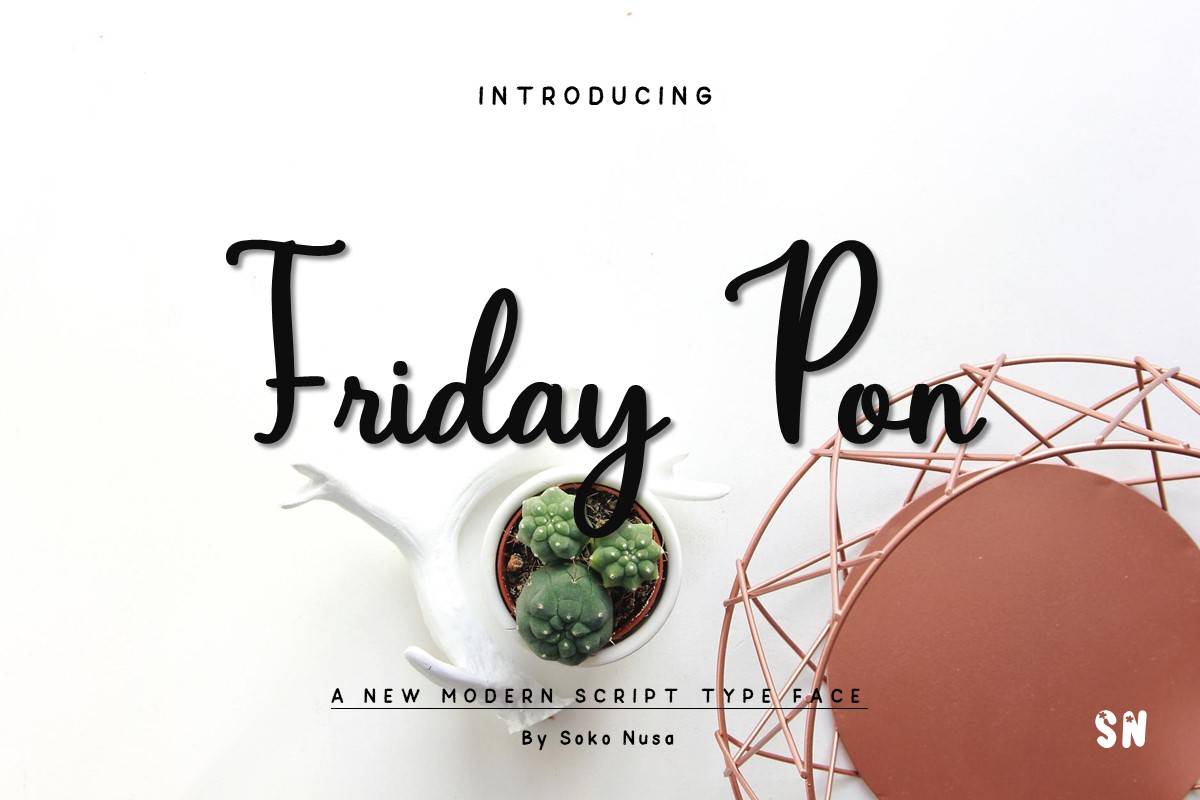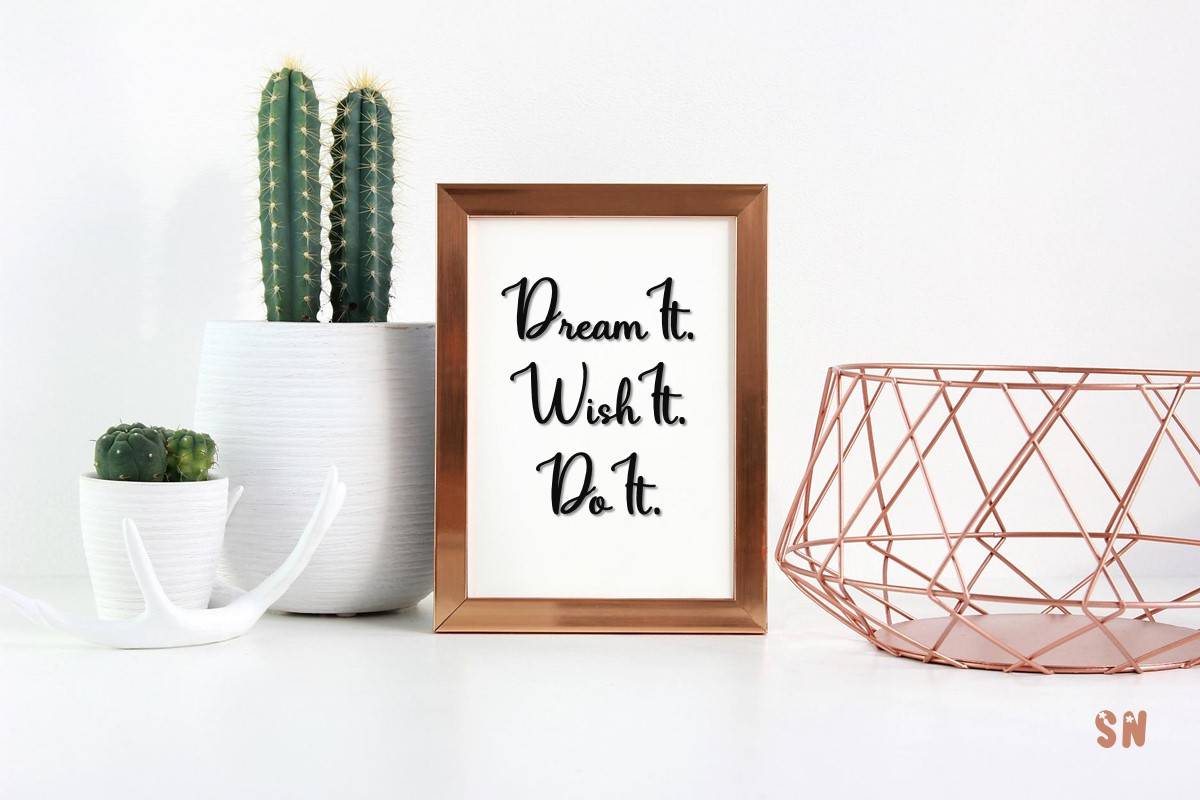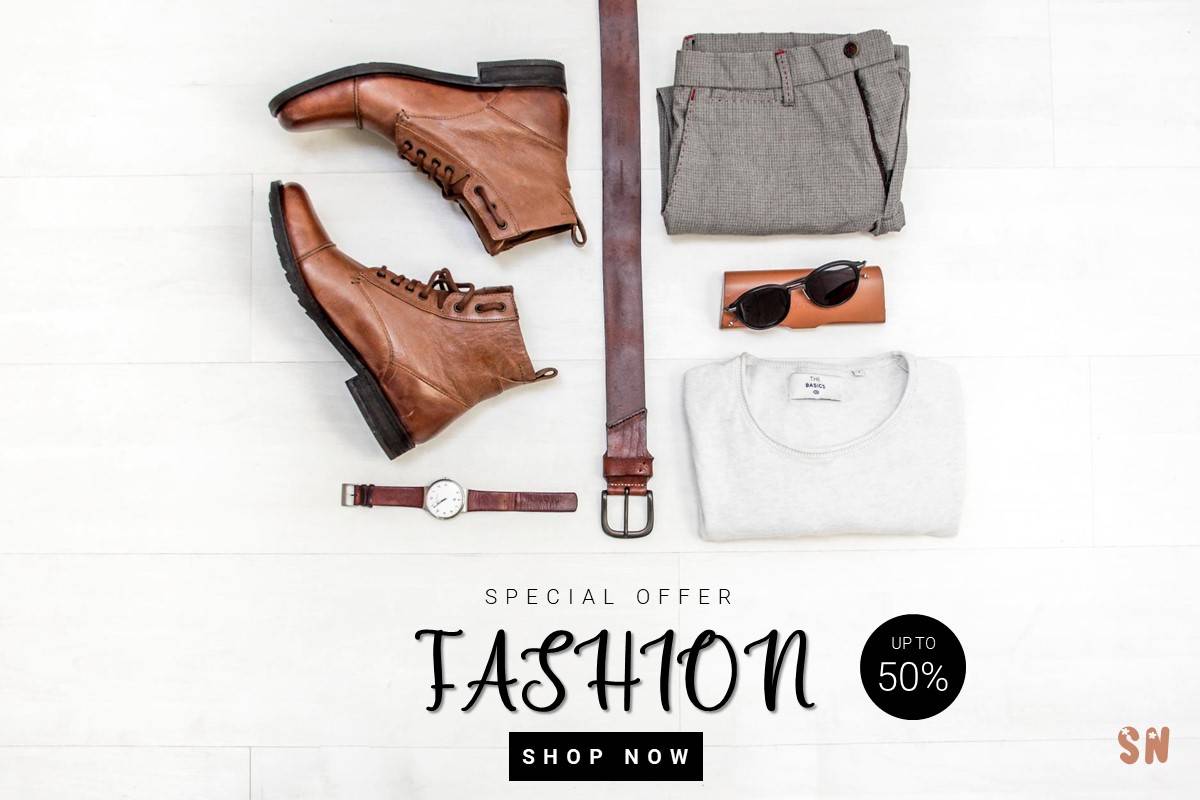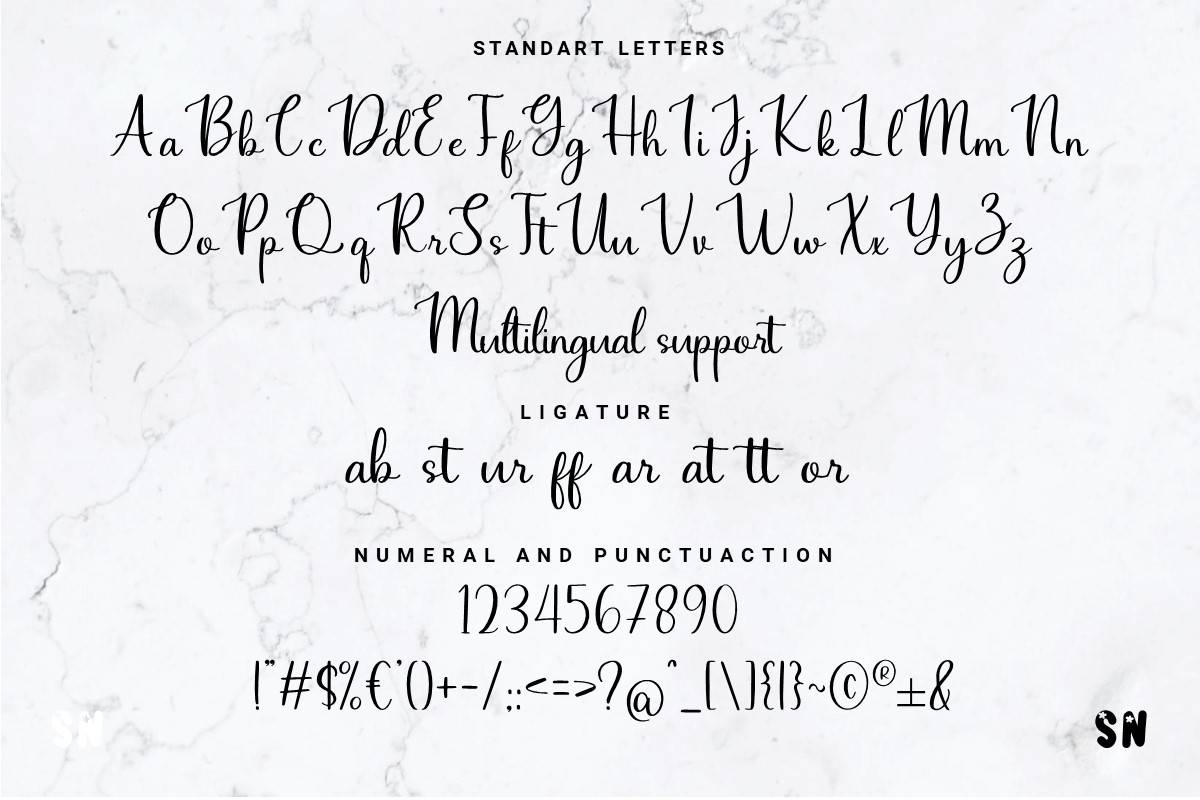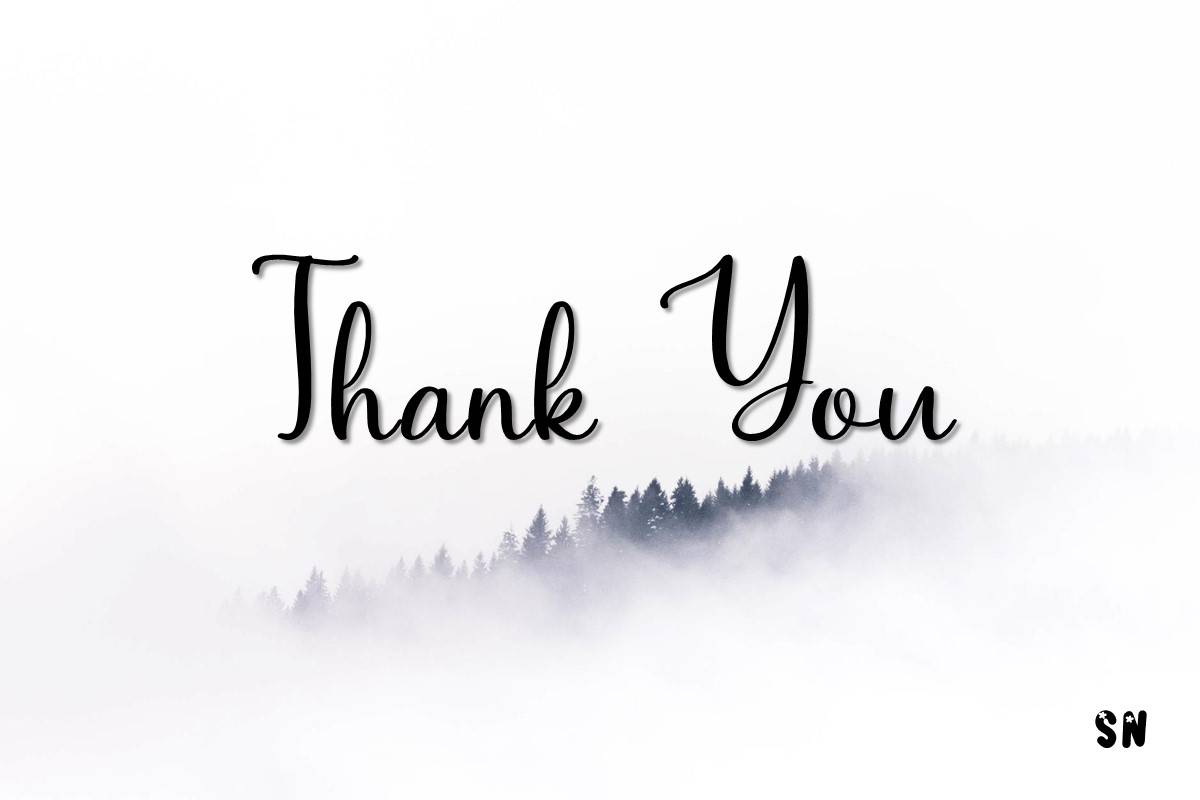
Friday Pon is a delicate, handwritten script font with a tall, slender form and elegant, flowing strokes that convey a casual yet refined personality. Its thin weight, distinct letter curls, and smooth curves make it ideal for creative projects like invitations, branding, and social media where a personal, charming touch is desired. This font works best in larger sizes for headlines or logos, adding a graceful and approachable feel to any design.
Friday Pon Font
About Friday Pon Font
| Font family | Friday Pon Font |
| Designer | Soko Nusa |